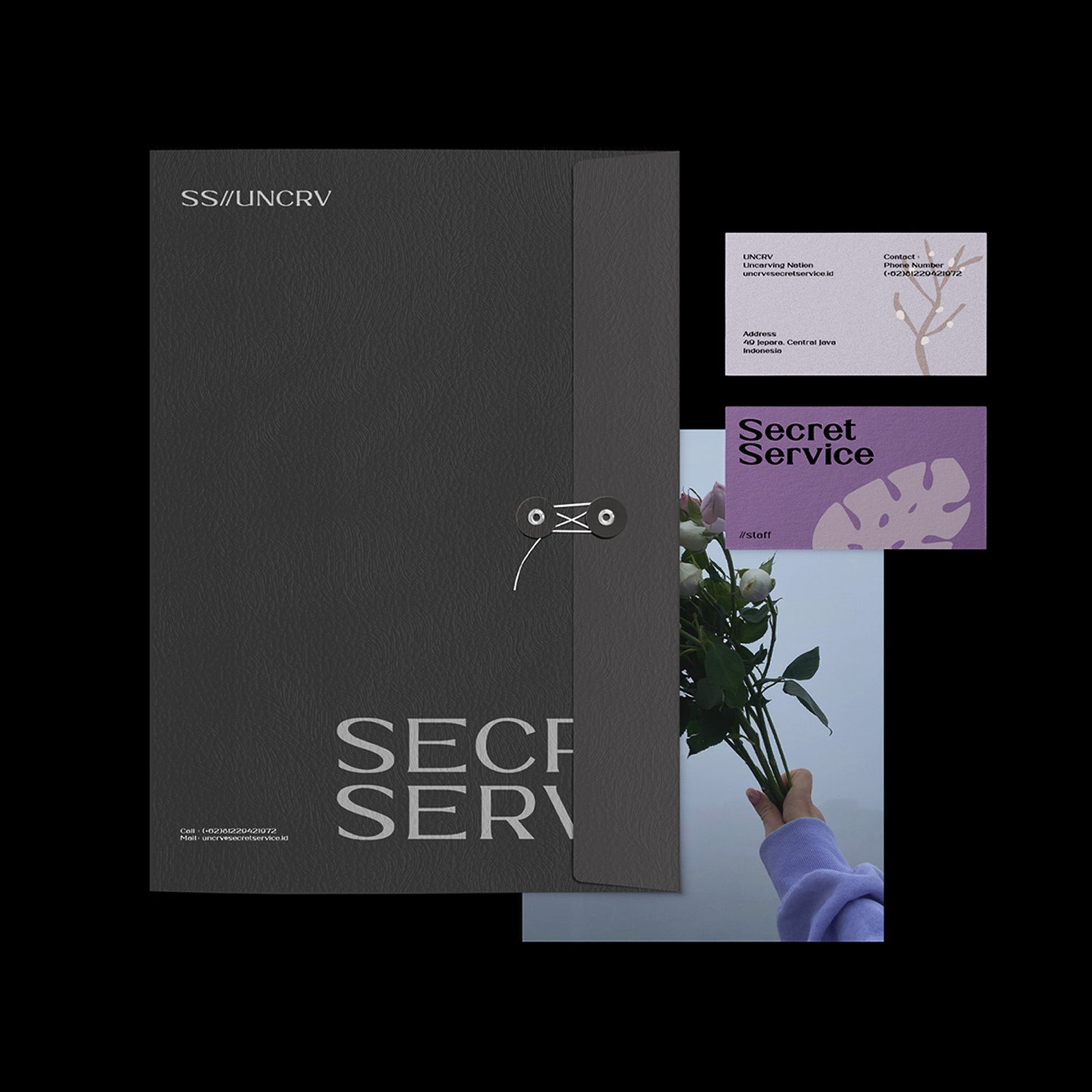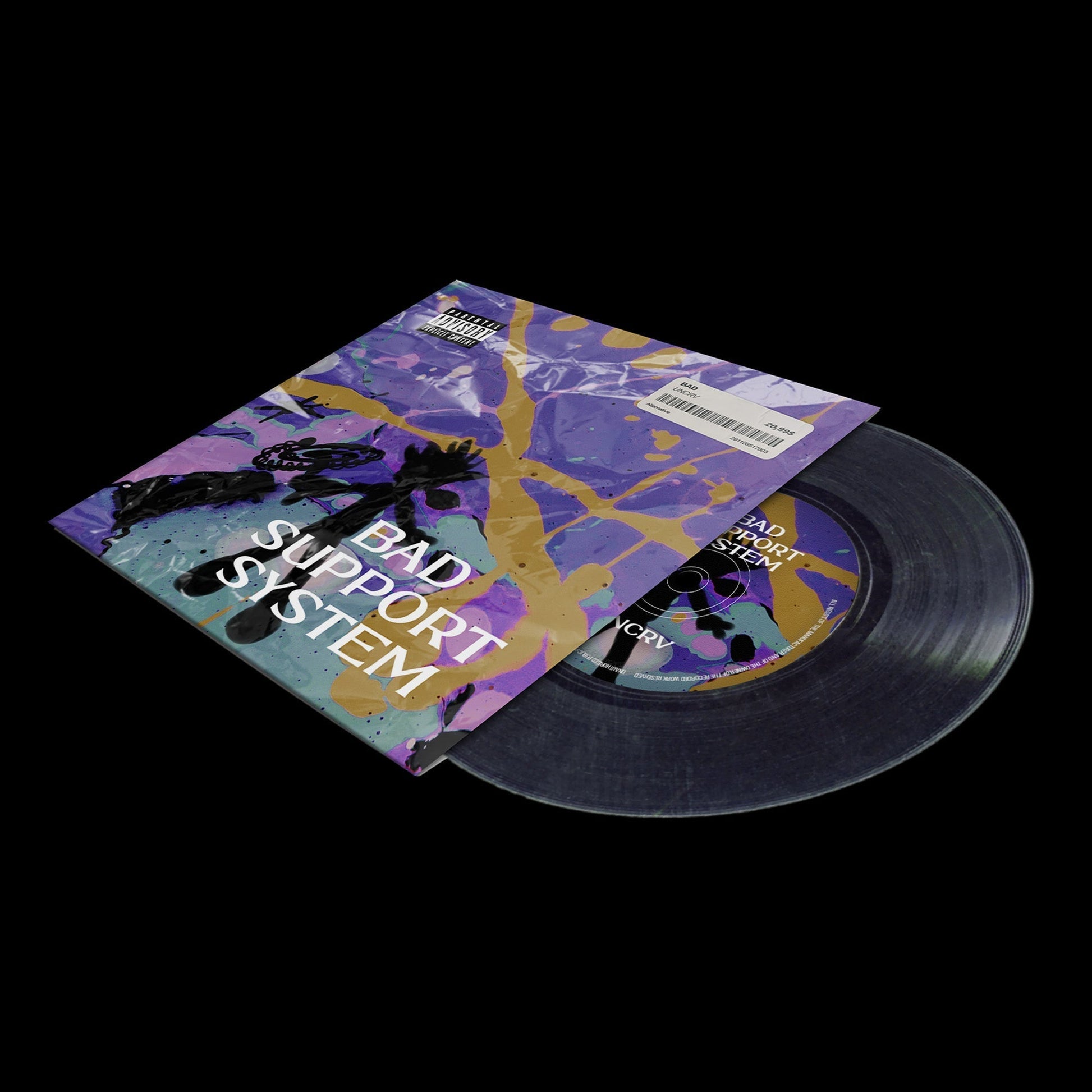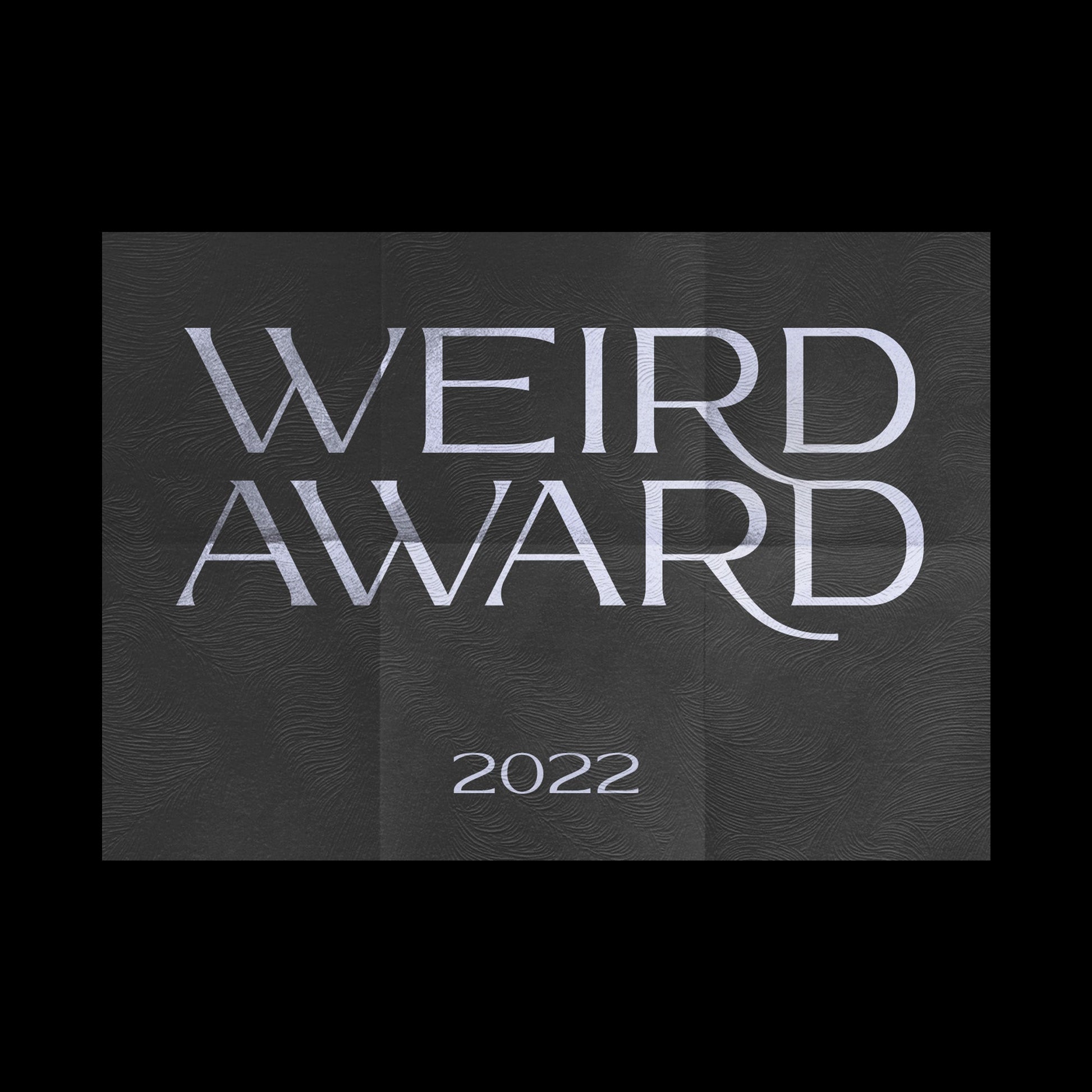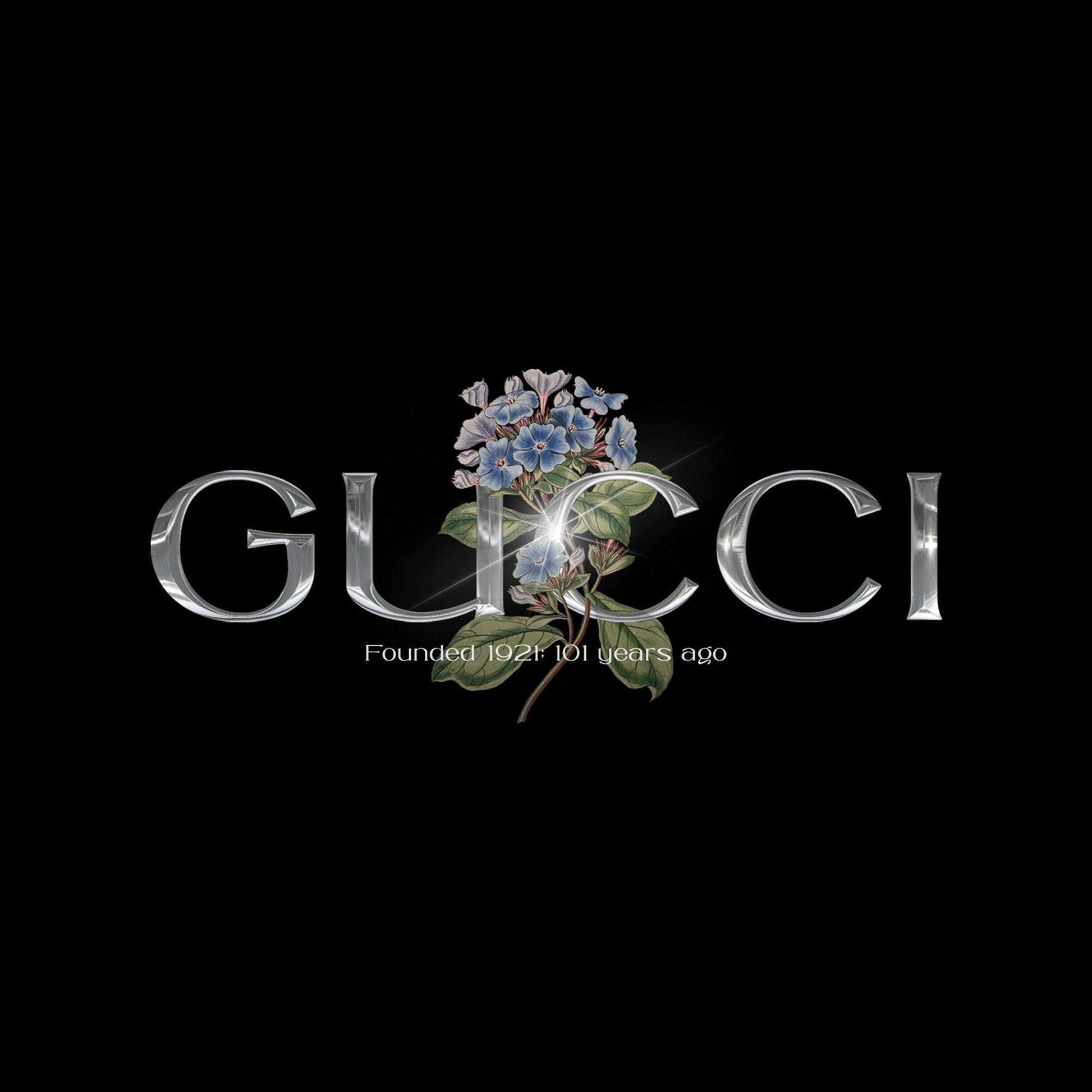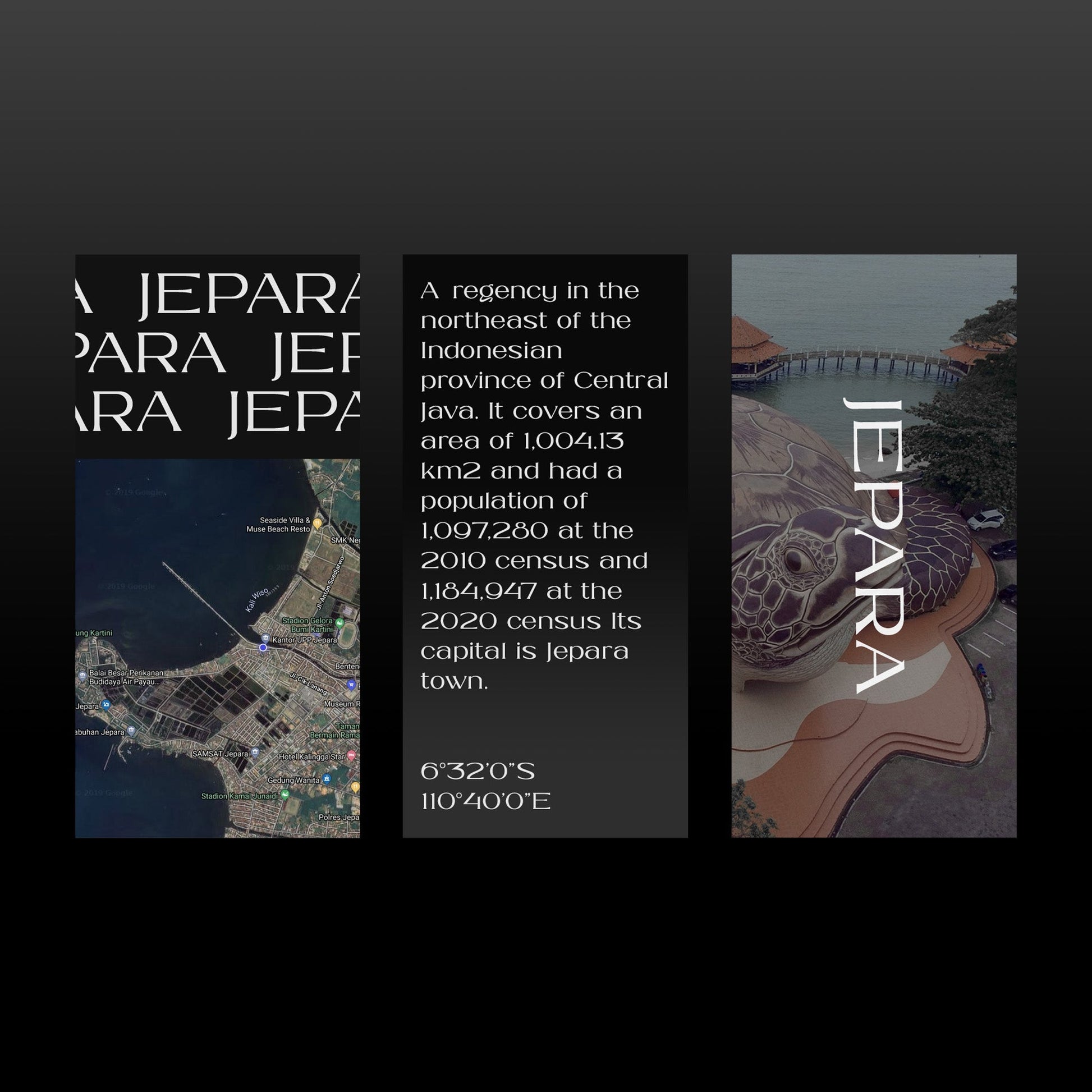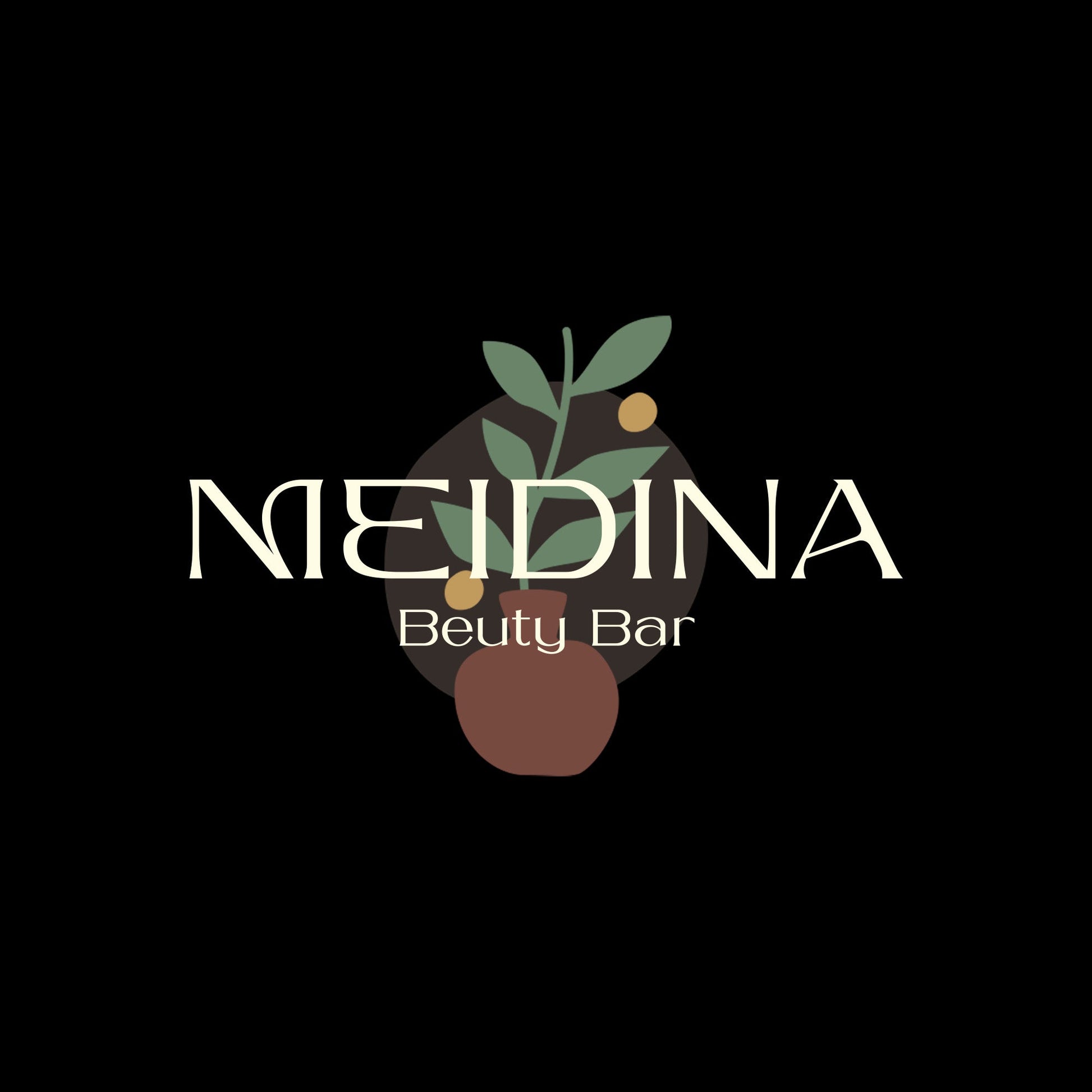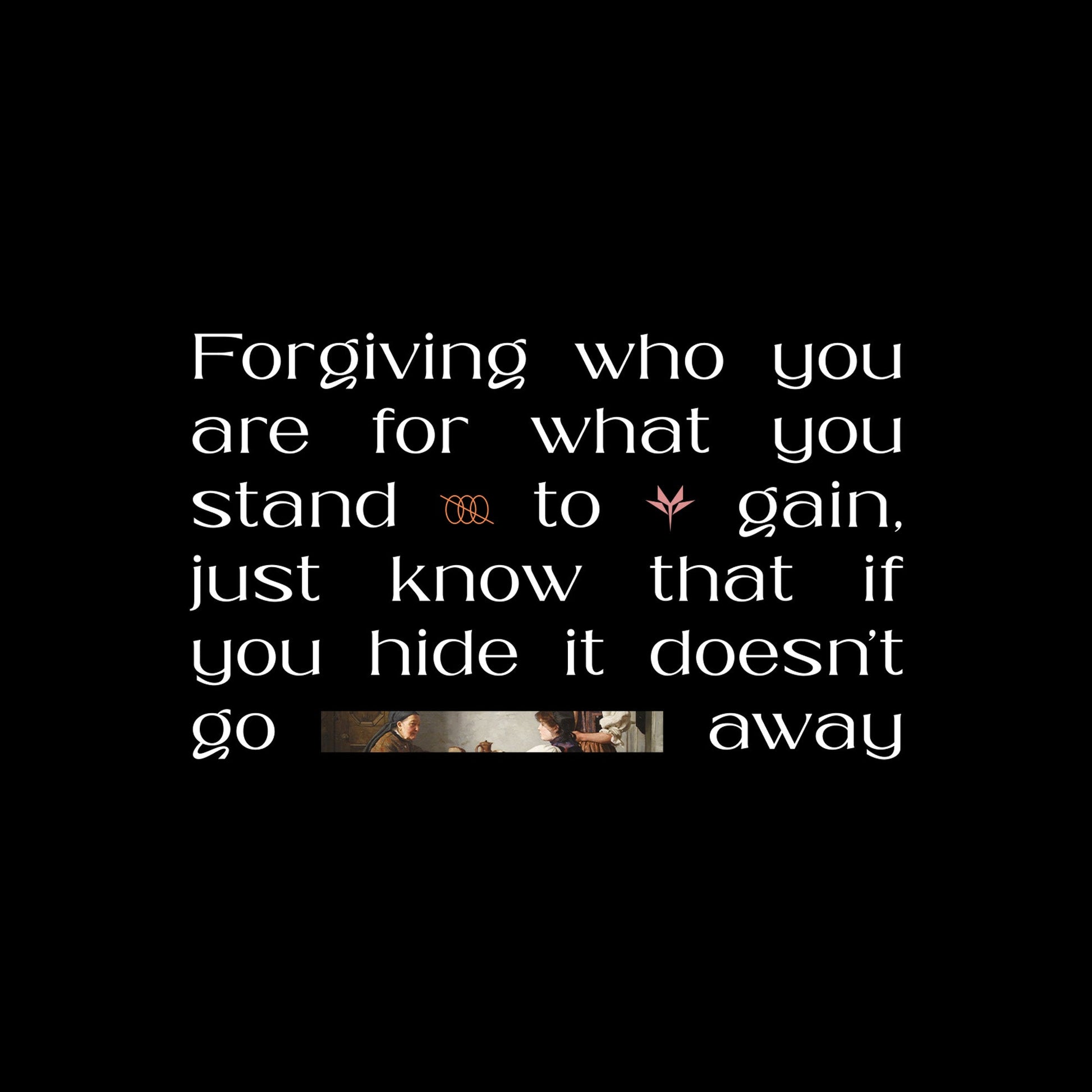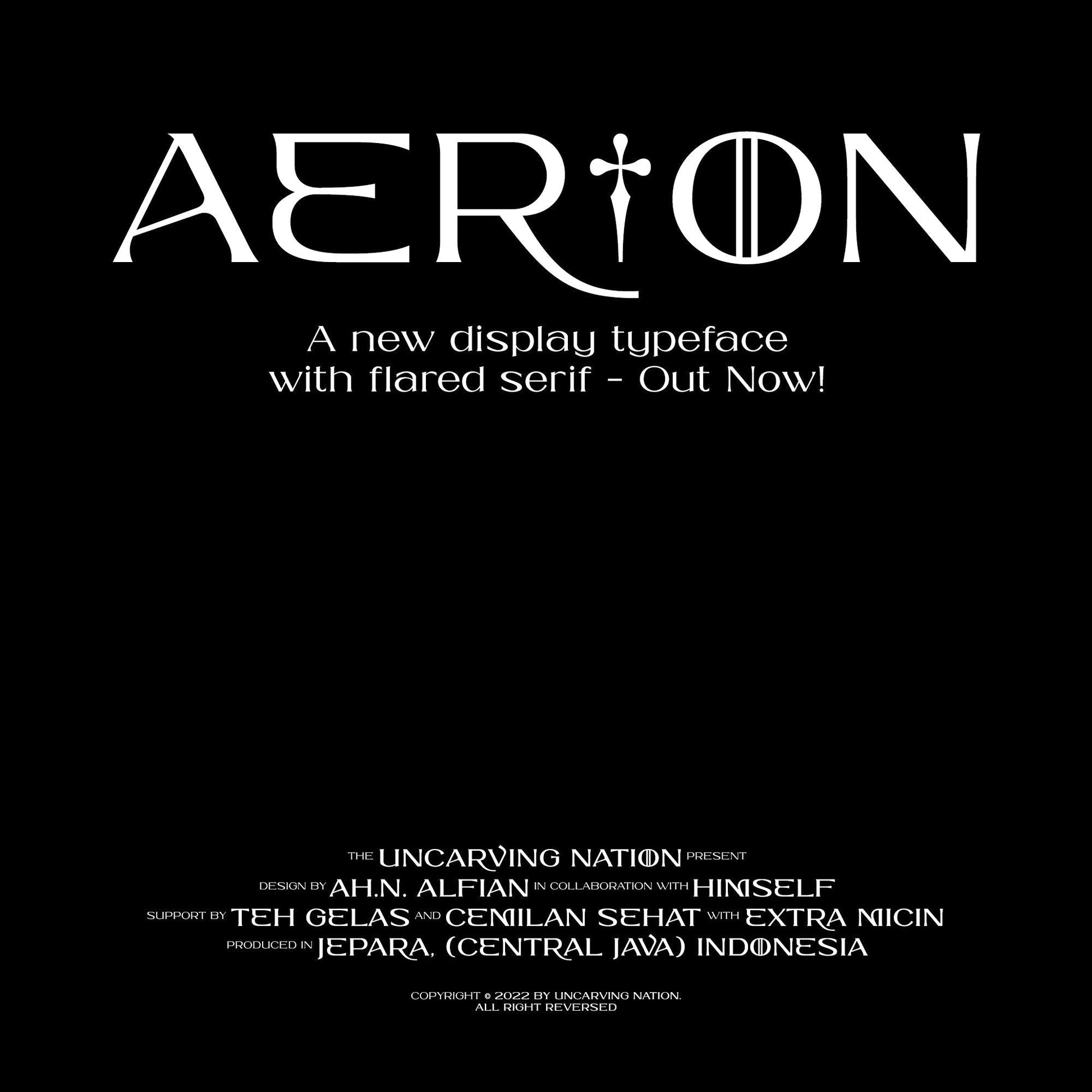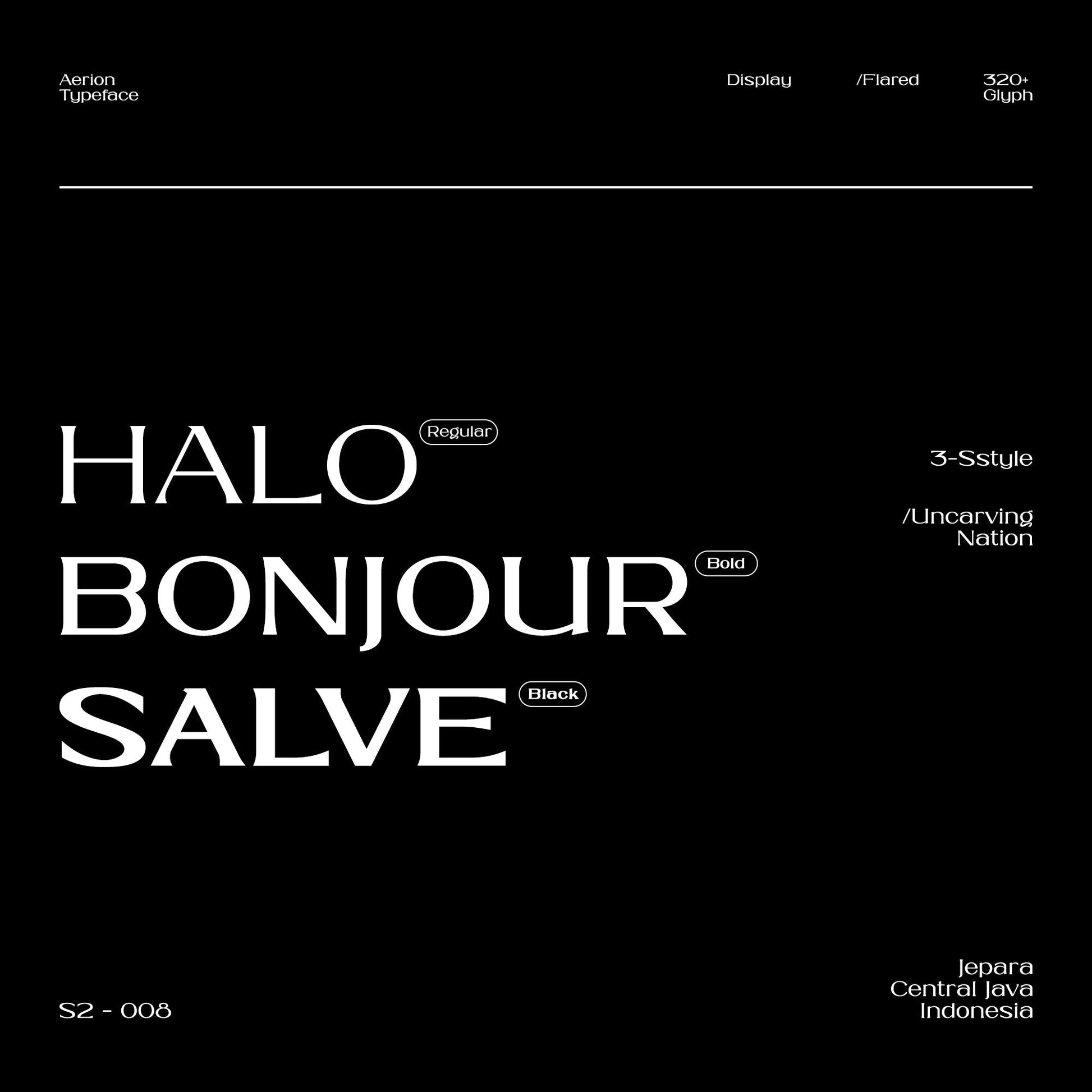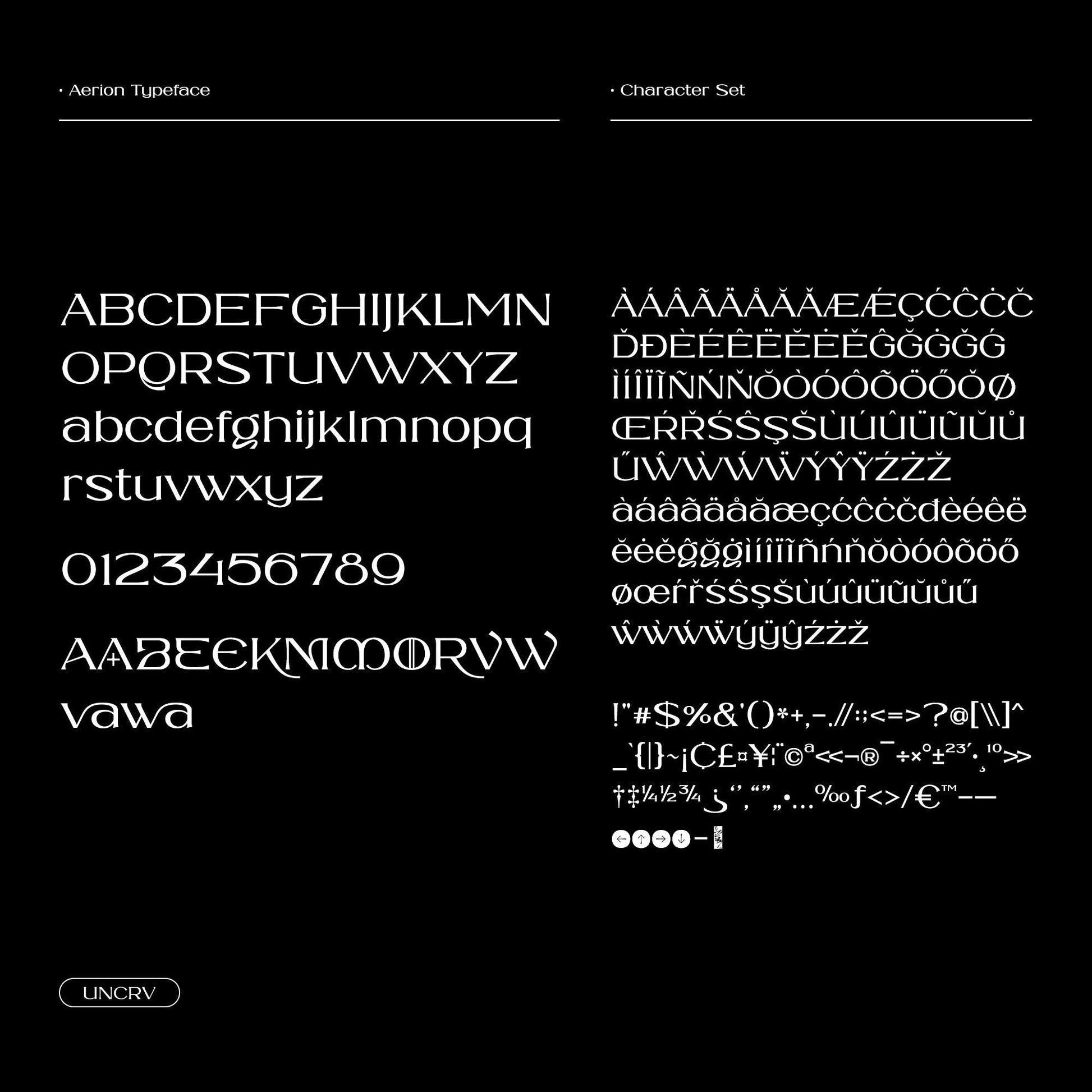
Aerion is a display typeface with flared serif usefull for classic or modern look. Perfectly suitable for creating magazine, editorial designs, social media, and much more. Features:
3 Weights font
Lowercase and Uppercase
Alternates & Ligatures
Numerals & Punctuation
Accented characters